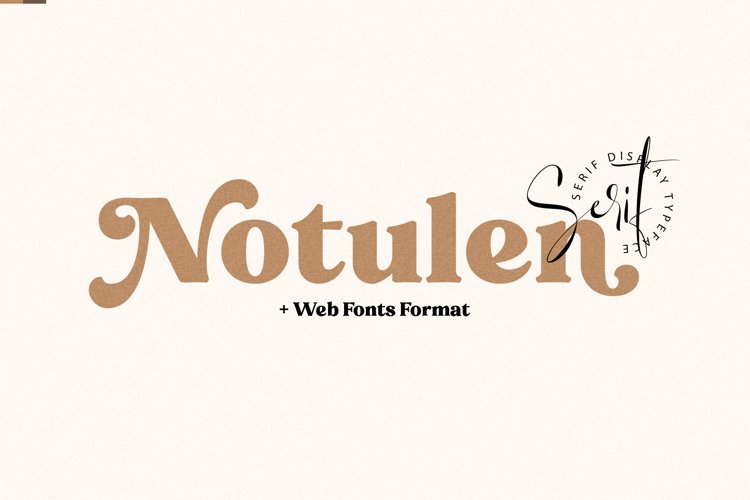
Notulen Serif Display Fonts
Notulen Serif Display Extra Bold
Notulen Serif Display Extra Bold V.02
Notulen is an Serif Display Typeface, Extra Bold style and nicely balanced curves. Notulen is inspired by Classic typography and now come with modern serif nuance. Short serifs with slightly rounded corners make this font legible at small points. Having several alternative letter variations makes it easy to work on all design projects and works perfectly for Logos, Headlines, Posters, Packaging, T-shirts, Postcards, Invitation, Wedding Sign, Sign Painting, Signboard, and much more.
This is the first version of Nottulen Serif Typefce. Furthermore this fonts will be available with Full Family. Meanwhile it is still being worked on. I hope you can enjoy this first version at this time.